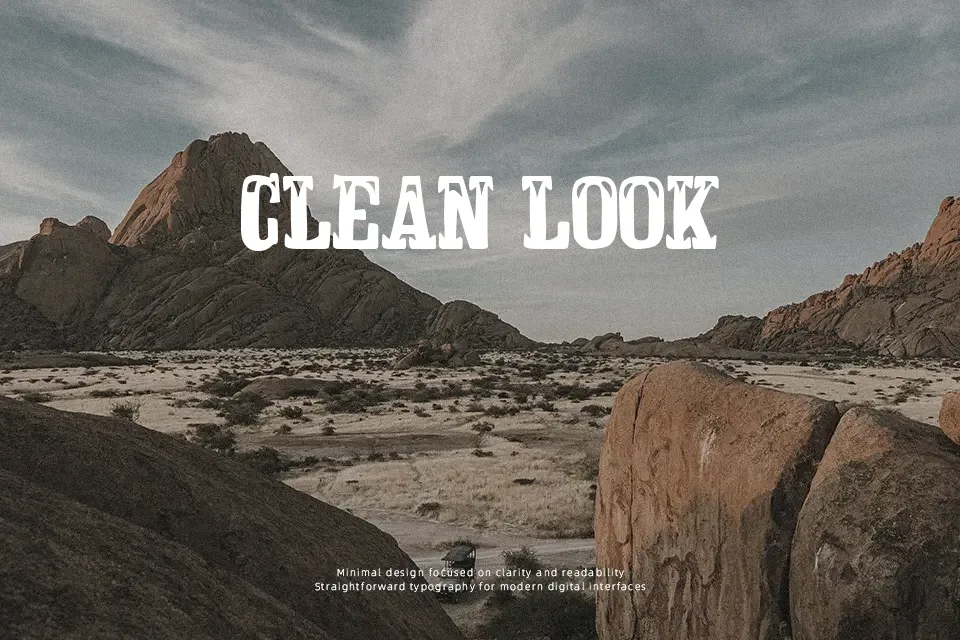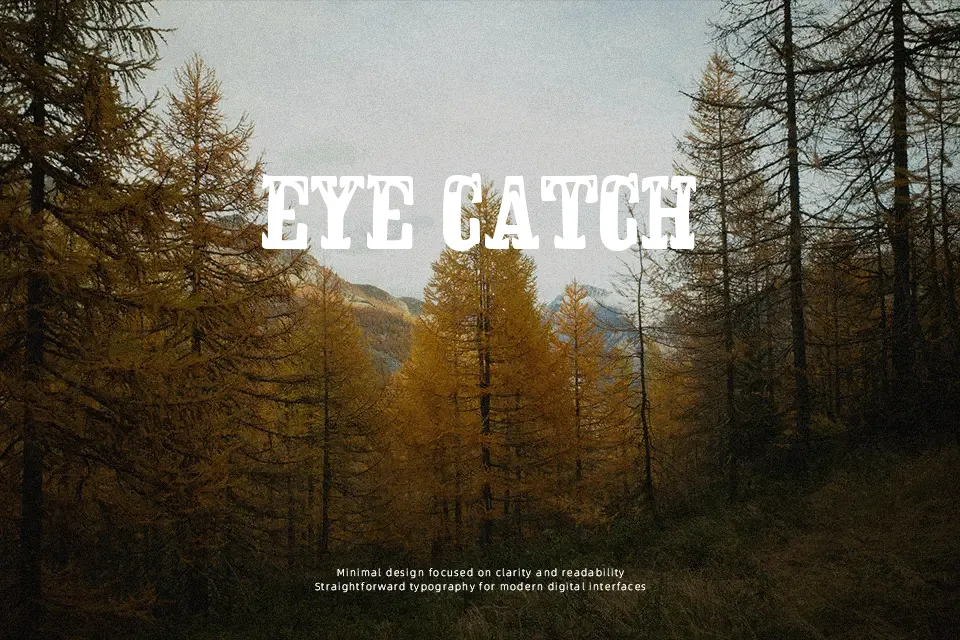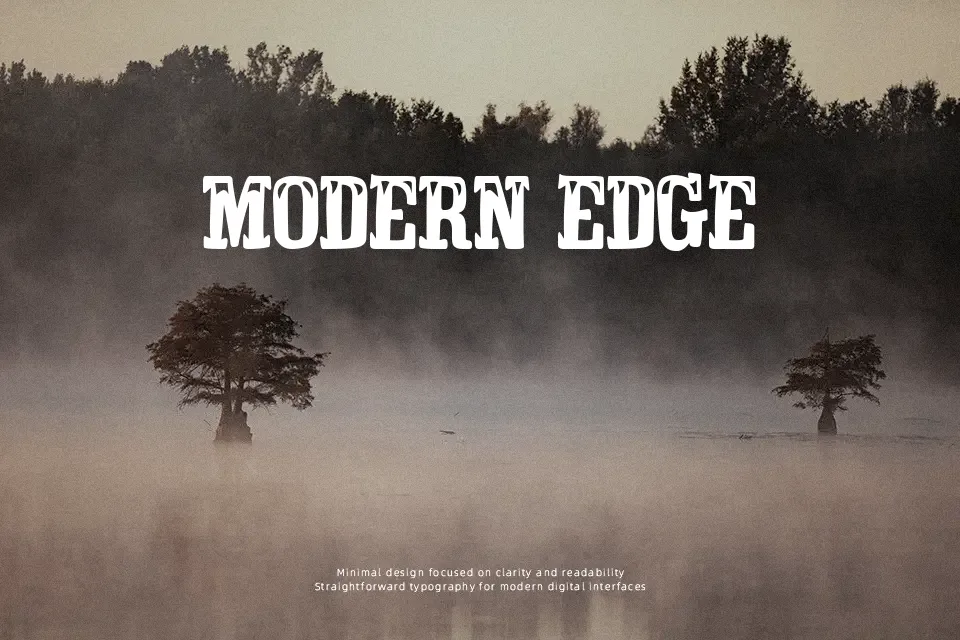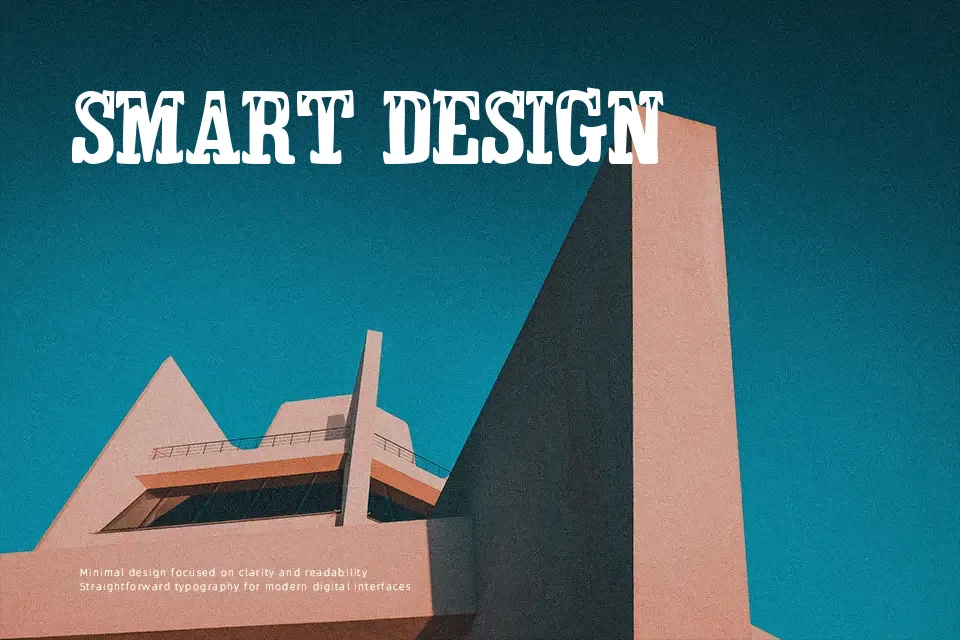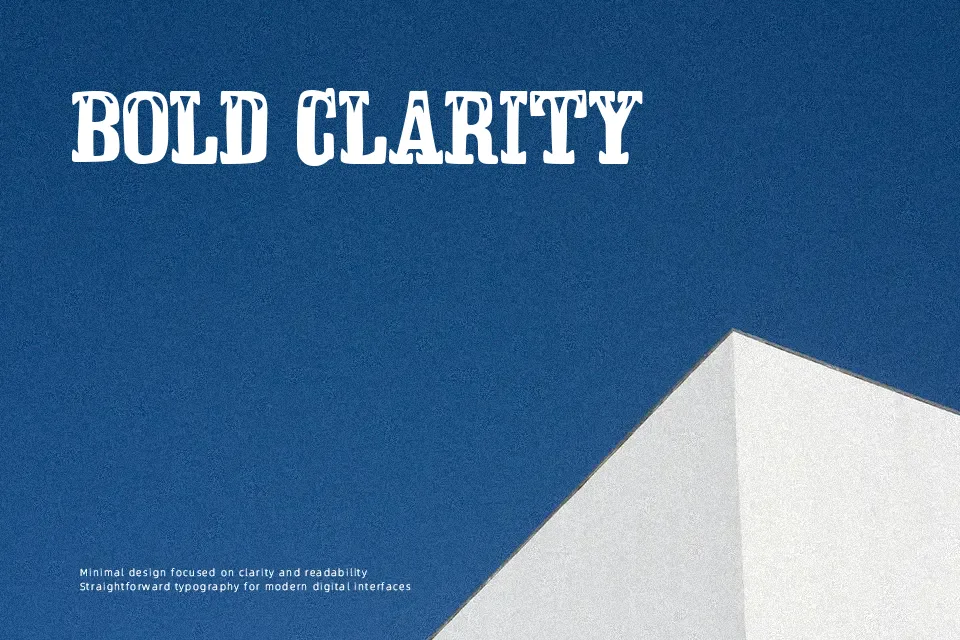
Canadian Western Font
Canadian Western is a heavy, high-contrast display face with chunky slab serifs, cut-out details, and compact letterforms that cluster tightly together for a strong, blocky rhythm. The caps feel sturdy and a little theatrical, which gives titles a classic Western poster energy rather than a neutral voice. It works well when you need just a few impactful words on posters, event flyers, saloon-style signage, or menus for themed restaurants and bars. For longer paragraphs or small UI labels it quickly becomes tiring to read, so it is better kept for headlines and logos instead of body text. If you know slab serif display fonts like other Western show faces, this one sits on the more decorative, rugged end of that spectrum.
western-themed posters and flyers
themed restaurant or bar signage and menus
logo marks and branding for country or rodeo events
movie or game titles with Wild West settings
long paragraphs or continuous body text
small UI labels or dense information layouts
minimalist or highly corporate branding systems
screen-heavy reading on mobile devices
Perfect for advertising, branding, and film, with a artistic and decorative style.